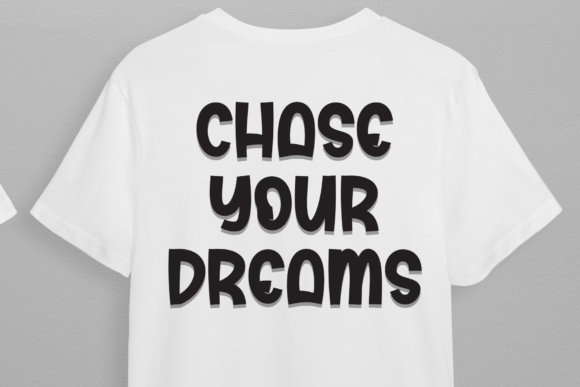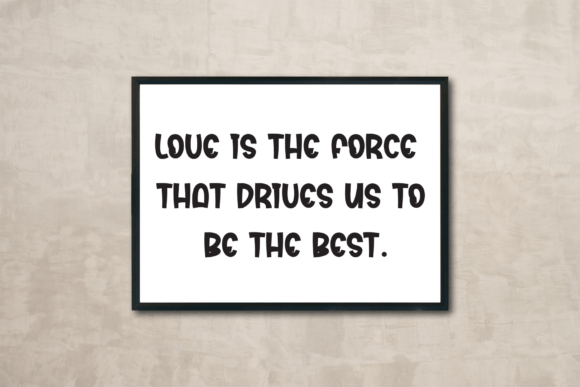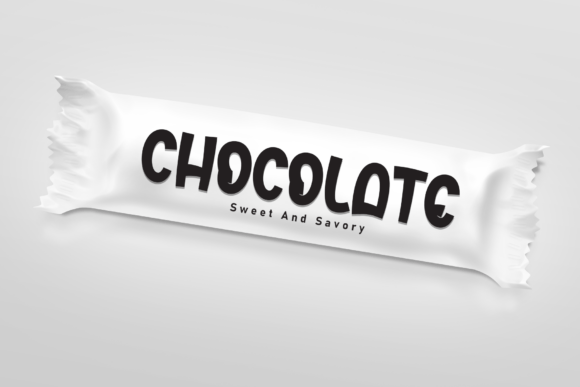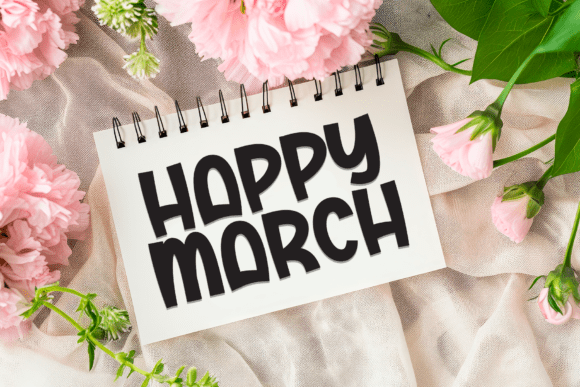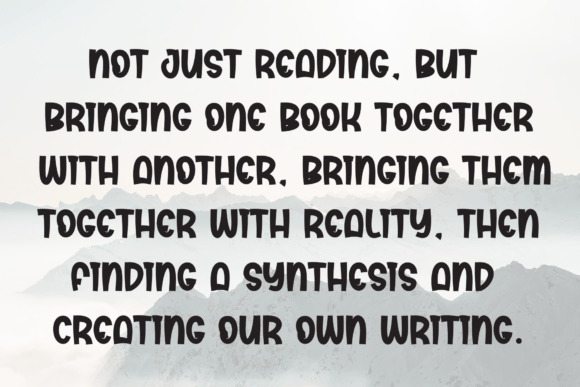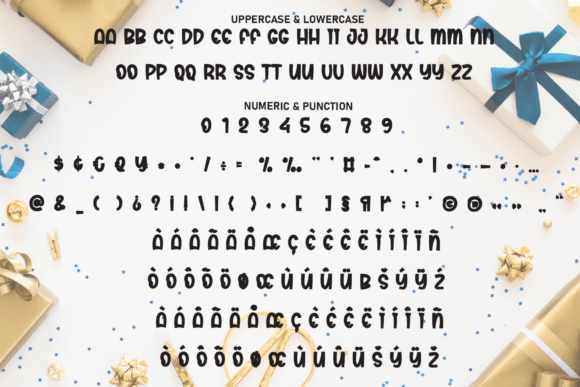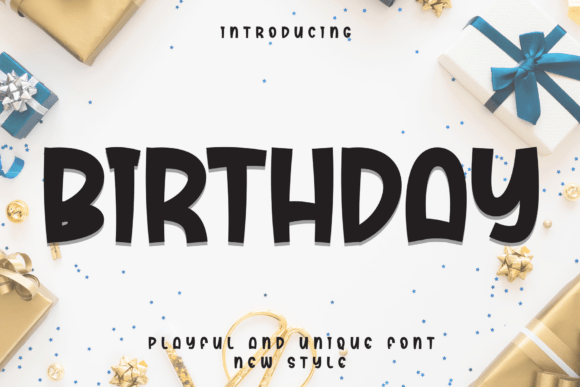
Introducing the Charm of Birthday Font: Elevate Your Designs with a Personal Touch
Are you tired of using the same old fonts for your designs? Do you want to add a touch of personality and whimsy to your work? Look no further than the Birthday Font, a handwritten display font that brings charm and character to every letter. With its playful strokes and casual flow, this font captures the essence of authentic handwriting, making it perfect for a variety of design projects.
The Unique Characteristics of Birthday Font
Birthday Font is a one-of-a-kind font that stands out from the crowd. Its handwritten display style gives it a personal and heartfelt feel, making it ideal for designs that require a touch of warmth and personality. The font’s playful strokes and casual flow create a sense of movement and energy, adding a dynamic touch to any design.
One of the key characteristics of Birthday Font is its ability to evoke a sense of nostalgia and playfulness. The font’s imperfect lines and irregular shapes give it a handmade feel, reminiscent of handwritten notes and letters. This makes it perfect for designs that require a personal touch, such as greeting cards, invitations, and quotes.
Birthday Font is a versatile font that can be used for a wide range of design projects. Whether you’re crafting for kids or designing a modern logo, this font adds warmth and whimsy to your work. Here are some ideas for using Birthday Font:
- Quotes and Posters: Add a personal touch to your inspirational quotes and posters with Birthday Font. The font’s playful style and casual flow make it perfect for designs that require a touch of personality.
- Greeting Cards and Invitations: Create personalized greeting cards and invitations with Birthday Font. The font’s handmade feel and whimsical style make it perfect for special occasions.
- Branding and Logos: Use Birthday Font to add a touch of personality to your brand or logo. The font’s unique style and character make it perfect for businesses that want to stand out from the crowd.
- Crafting and DIY Projects: Add a personal touch to your crafting and DIY projects with Birthday Font. The font’s handmade feel and playful style make it perfect for a variety of craft projects, from scrapbooking to card making.
Why Choose Birthday Font?
So why choose Birthday Font for your design projects? Here are just a few reasons:
- Unique and Personal: Birthday Font is a one-of-a-kind font that adds a personal touch to any design.
- Playful and Whimsical: The font’s playful style and casual flow make it perfect for designs that require a touch of personality and whimsy.
- Versatile: Birthday Font can be used for a wide range of design projects, from quotes and posters to branding and logos.
- Easy to Read: Despite its playful style, Birthday Font is easy to read and understand, making it perfect for designs that require a clear message.
In conclusion, Birthday Font is a unique and versatile font that brings charm and character to every letter. With its playful strokes and casual flow, it captures the essence of authentic handwriting, making it perfect for a variety of design projects. Whether you’re a designer, crafter, or DIY enthusiast, Birthday Font is a great choice for adding a personal touch to your work. So why not give it a try and see the difference it can make in your designs?
With Birthday Font, you can add a touch of personality and whimsy to your designs, making them stand out from the crowd. So go ahead, get creative, and make your designs shine with Birthday Font!